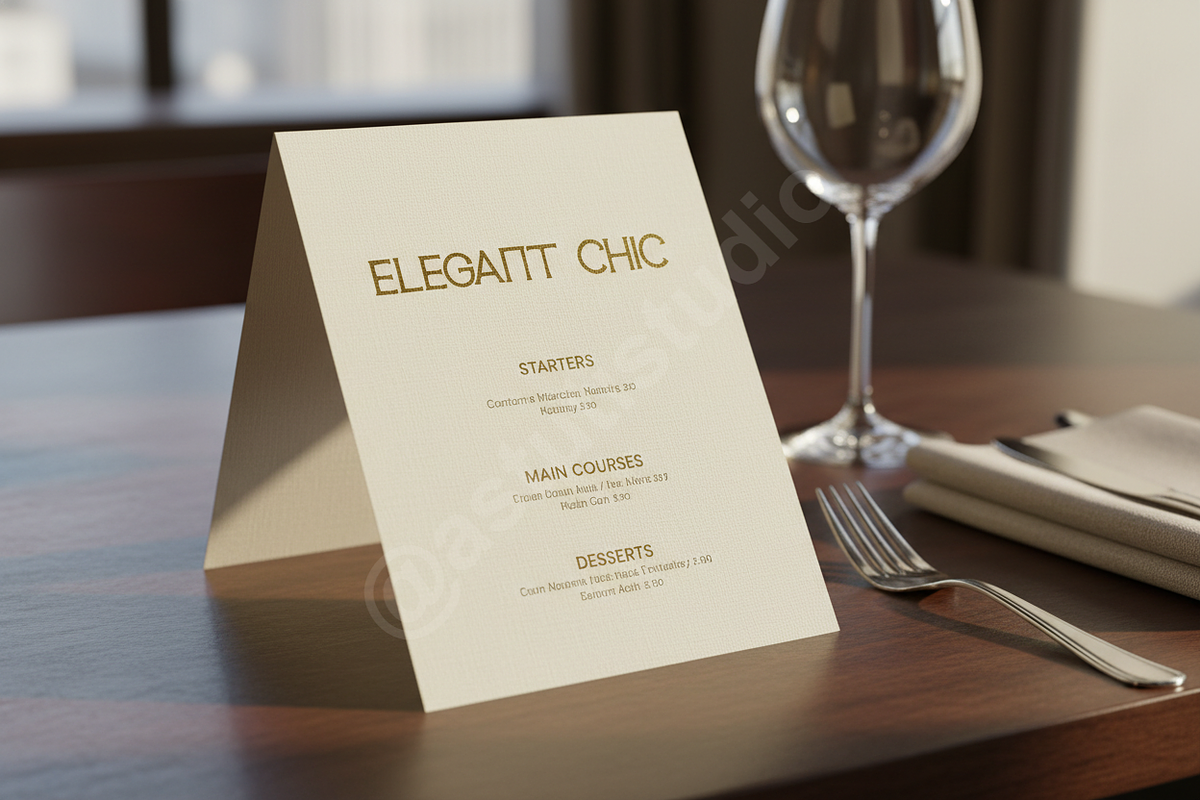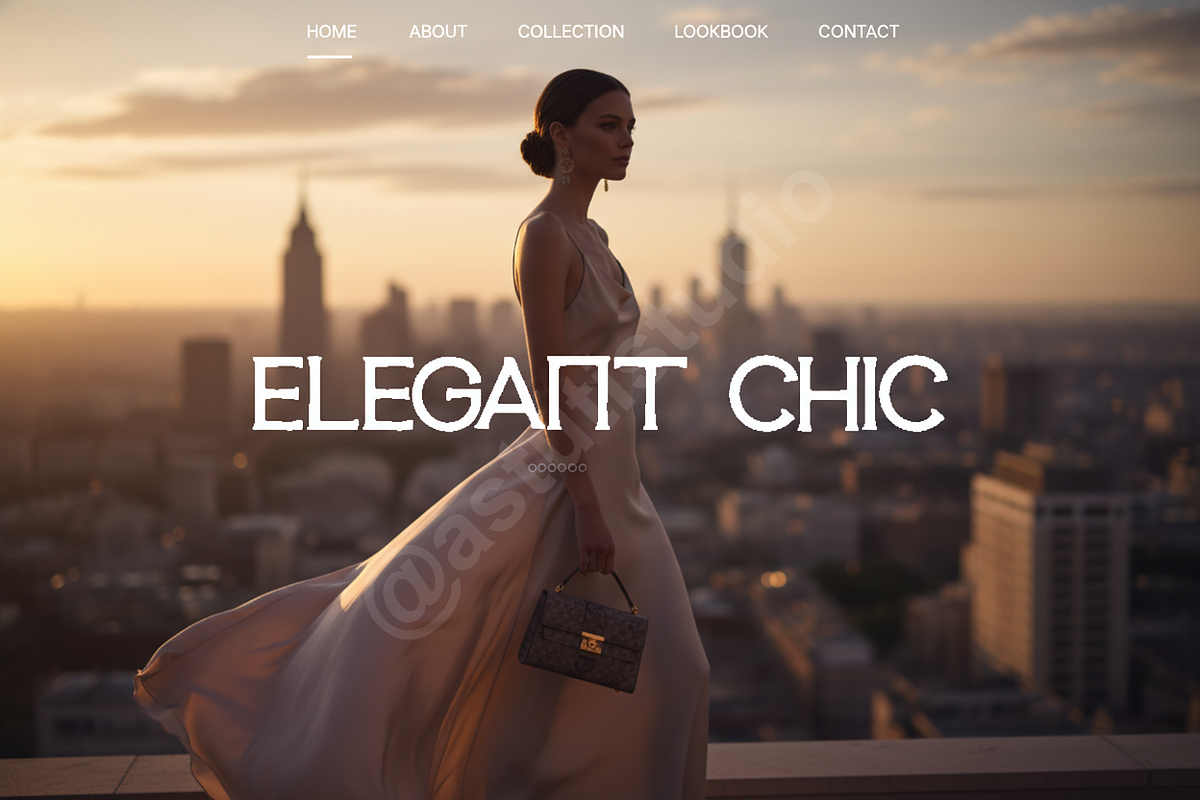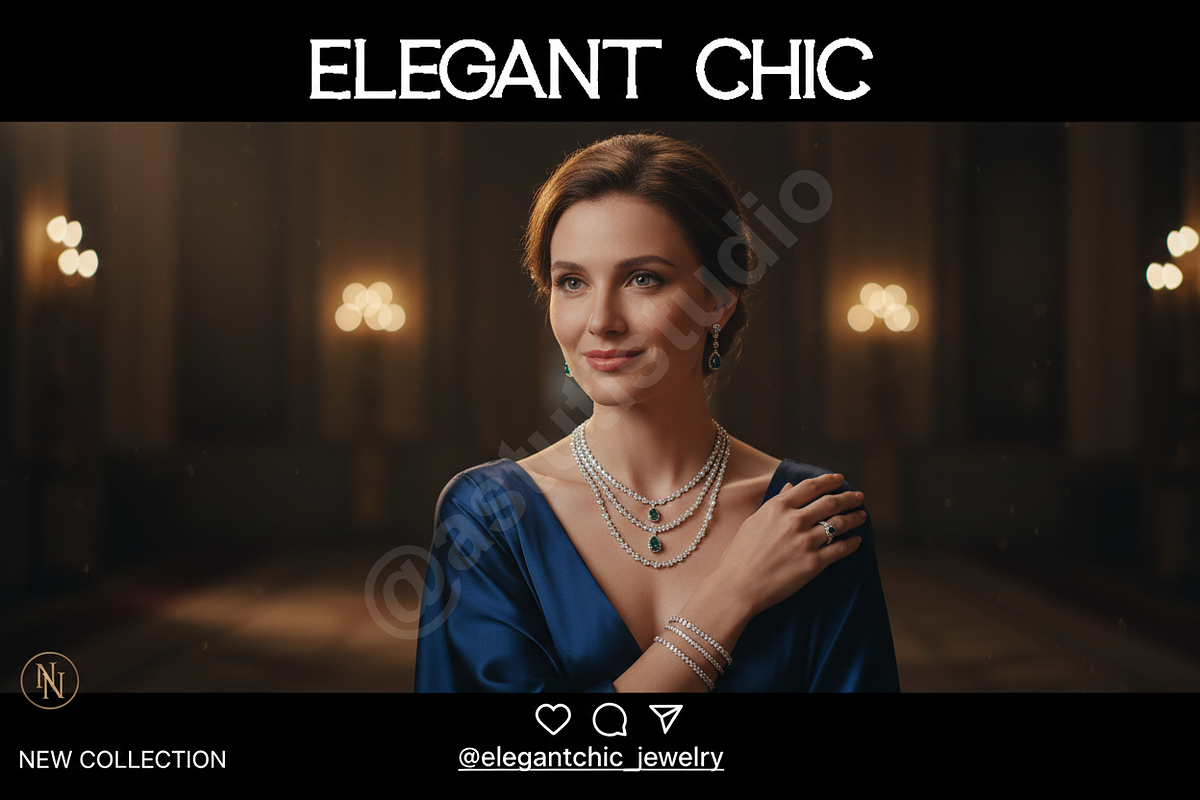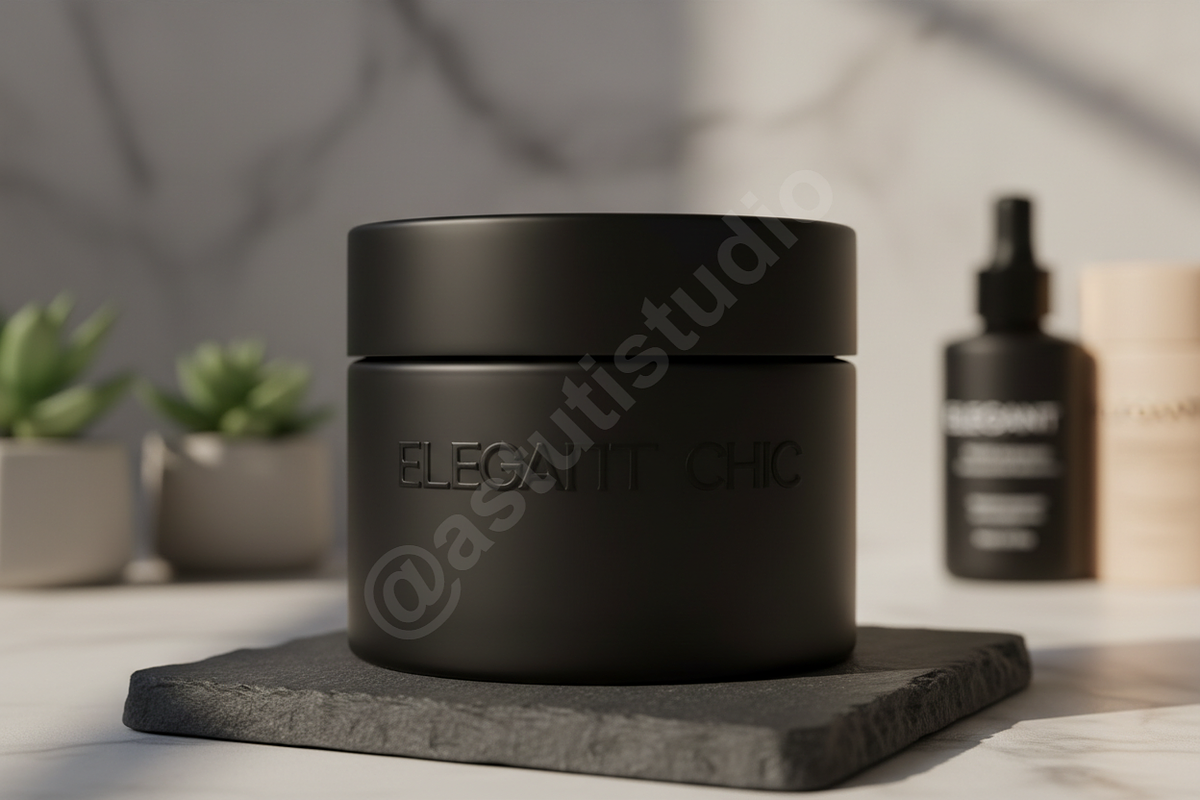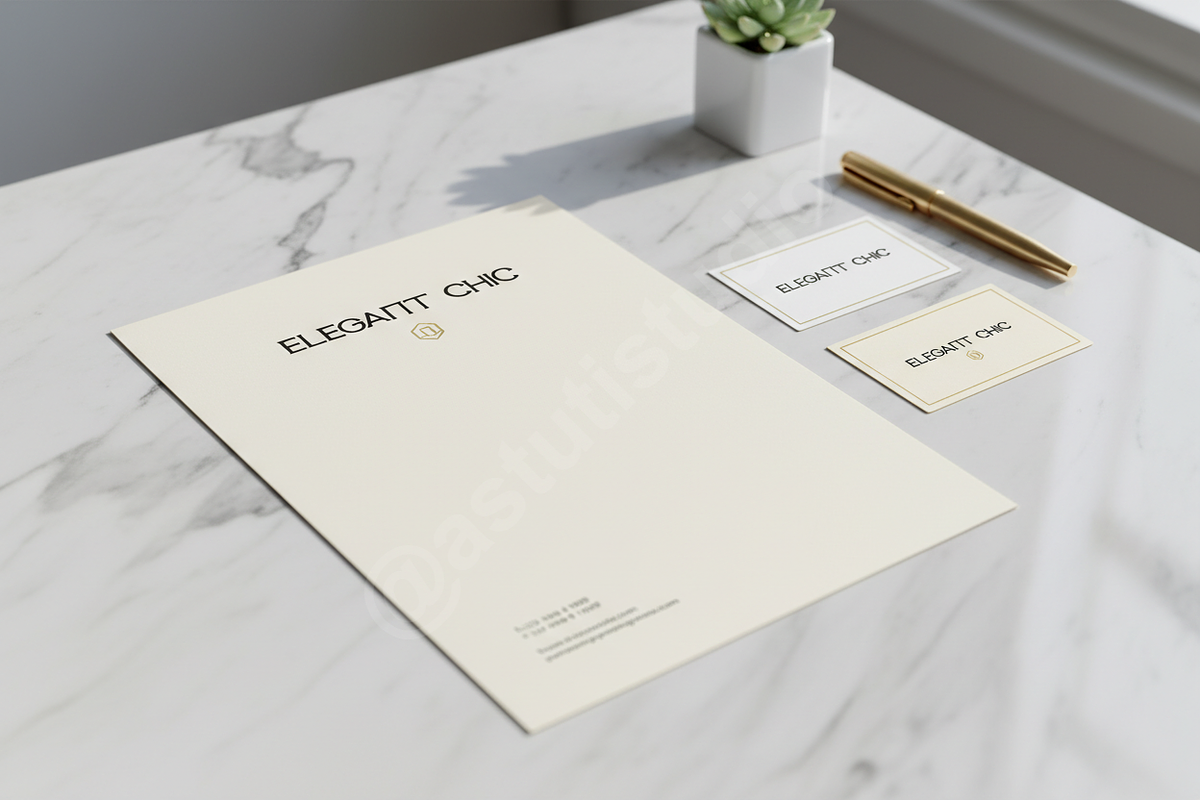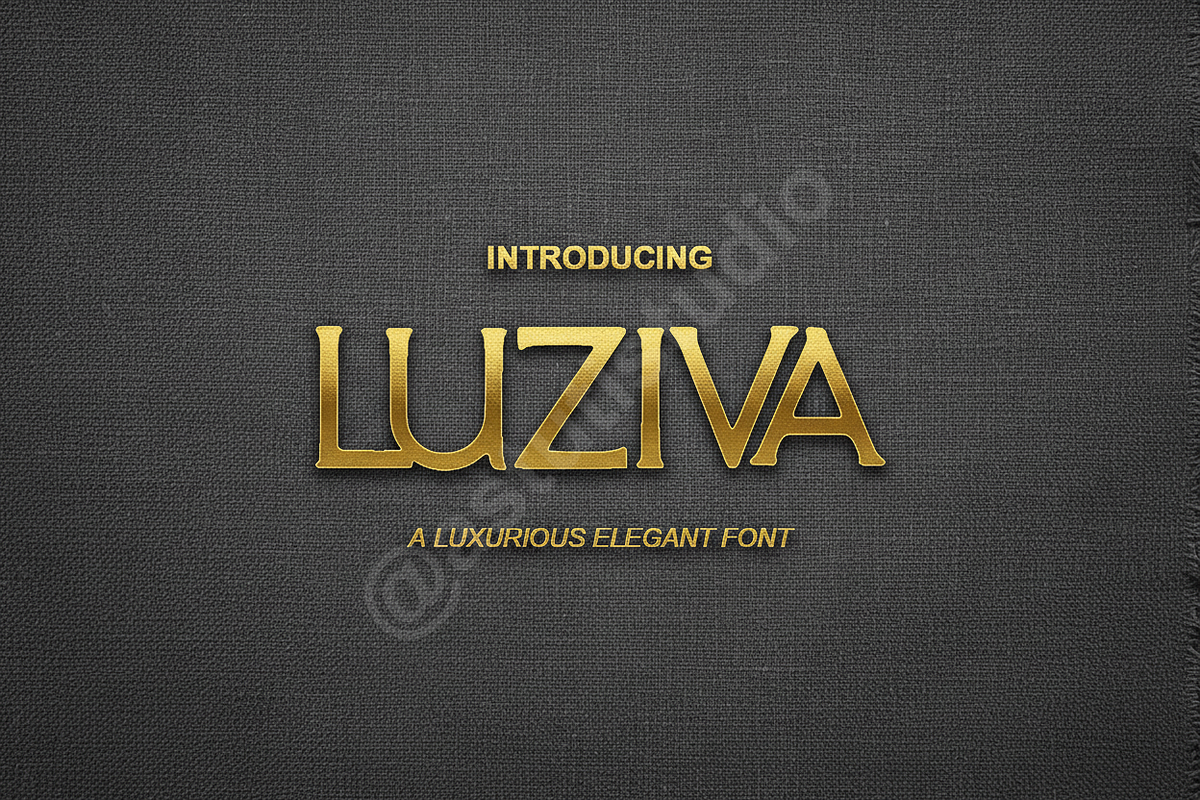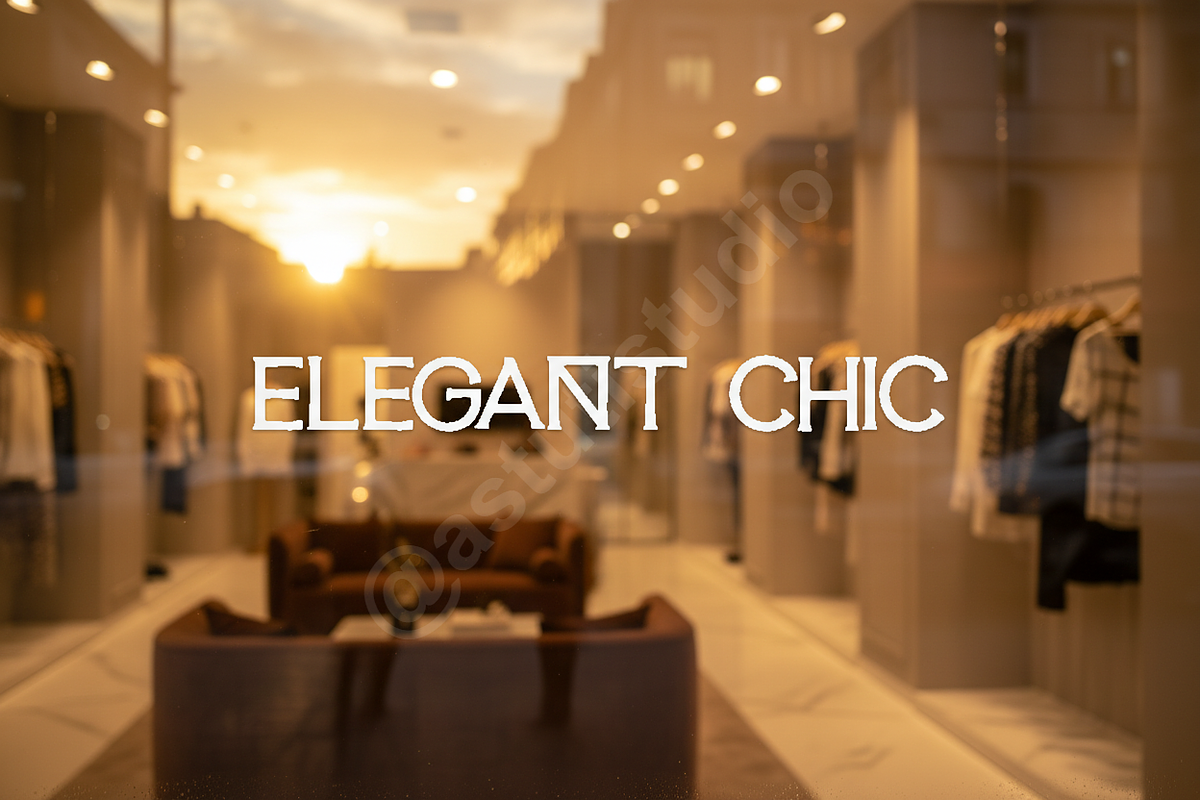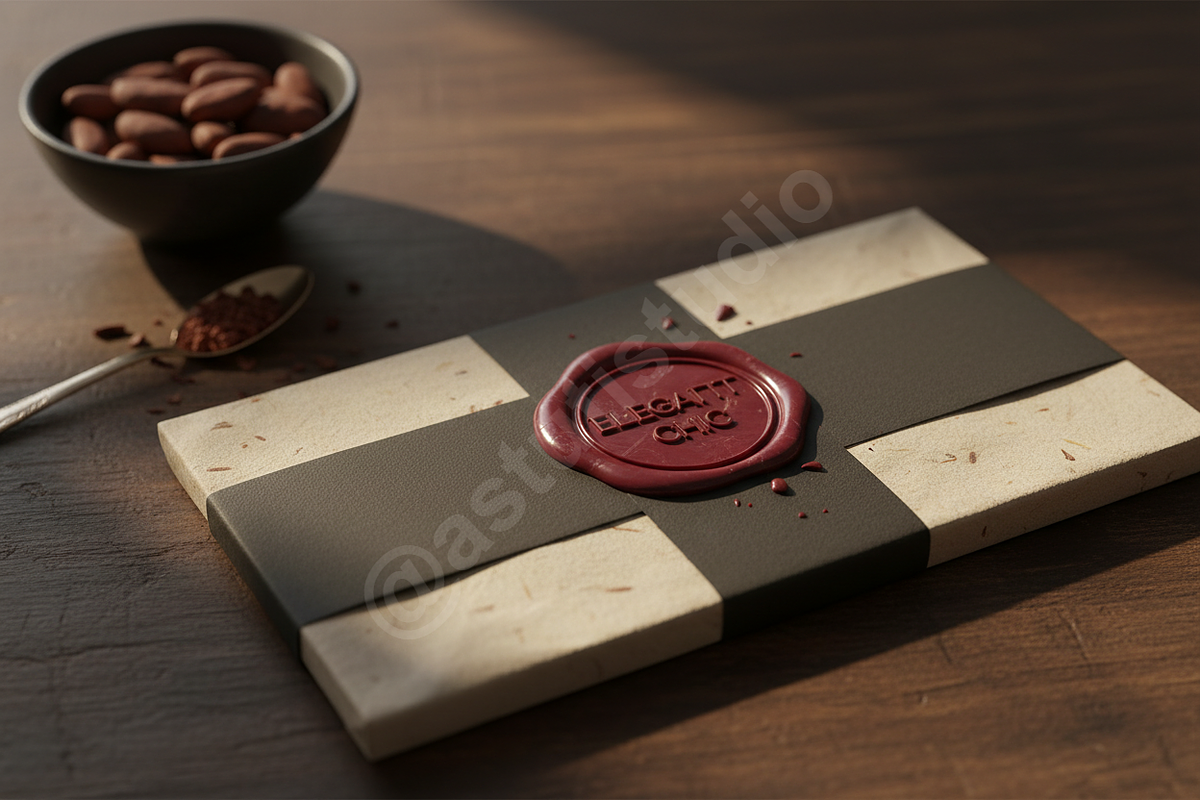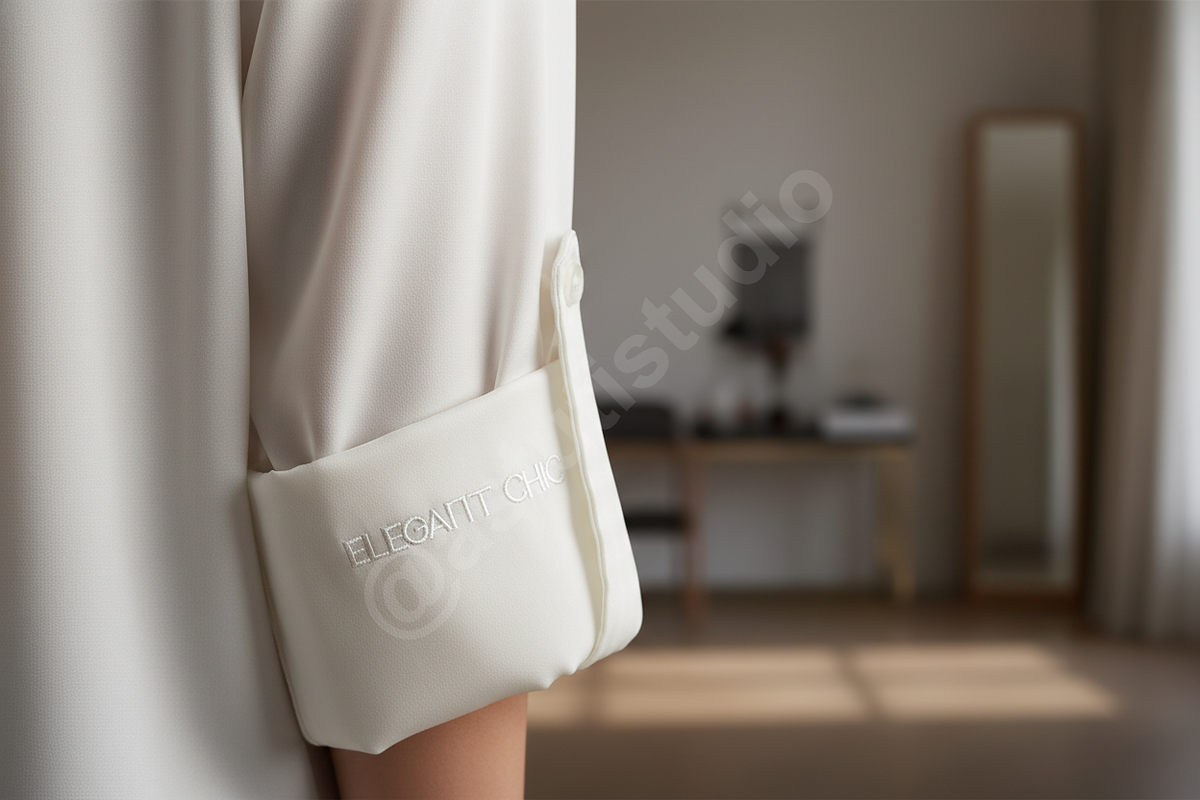
Luziva | Elegant Serif Typeface
Introduction Luziva is a high-end serif typeface designed for the modern minimalist. Meticulously crafted for professional studio work, Luziva blends timeless elegance with contemporary precision. Its balanced proportions and refined curves make it the premier choice for luxury branding, editorial layouts, and sophisticated social media aesthetics. Whether you are designing a boutique logo or a high-fashion magazine, Luziva provides the polished finish your project deserves.
- Elegant and balanced serif proportions
- Sophisticated ligatures for a custom-lettered look
- Broad multilingual character support
- Optimized for high-resolution print and digital displays
- Clean, legible letterforms across all sizes
- Complete set of Stylistic Alternates